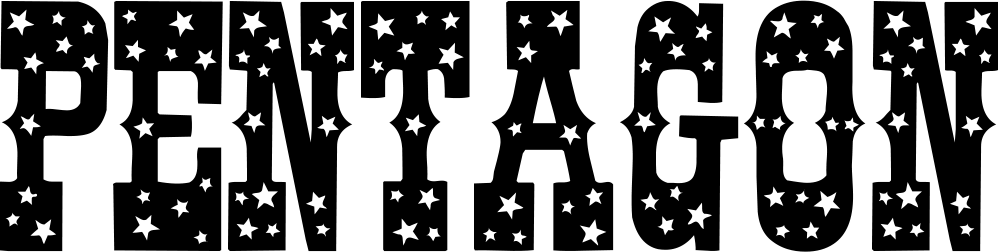
Pentagon Font
Pentagon font with its starry and bold letters can be used for so many different projects like patriotic flyers, 4th of July posters, etc. This star font contains only the uppercase of the alphabet the numbers and a few…
Pentagon font with its starry and bold letters can be used for so many different projects like patriotic flyers, 4th of July posters, etc. This star font contains only the uppercase of the alphabet the numbers and a few punctuation marks.